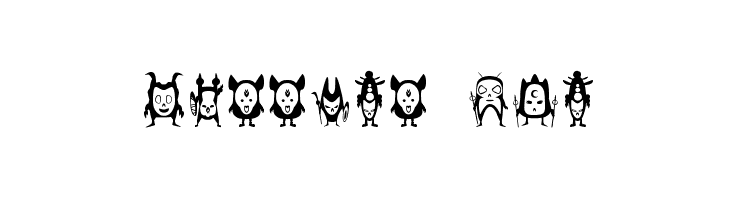
A collection of whimsical, character-based designs resembling cartoonish warriors.
A decorative dingbat font of whimsical warrior and tribal characters.